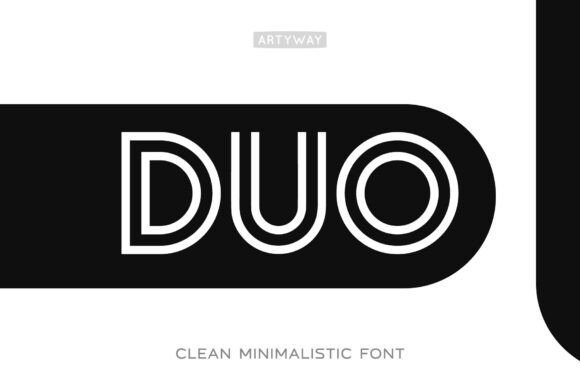
Duo Font: Elevate Your Typography with Retro-Tech Elegance and Clean Geometry
In the world of typography, fonts play a crucial role in conveying messages, expressing emotions, and creating visual identities. With the ever-evolving design landscape, it’s essential to stay ahead of the curve with fresh and innovative fonts. One such font that has caught the attention of designers and typography enthusiasts is the Duo Font. In this article, we’ll explore the features, benefits, and uses of the Duo Font, and why it’s a must-have for any designer looking to elevate their typography game.
What is Duo Font?
DUO is a geometric, clean, and bold display font designed by font creator. It’s a modern, minimalistic font with a strong visual rhythm and high-impact presence. The font’s distinct double-line structure blends retro-futuristic aesthetics with modern minimalism, making it perfect for creating standout titles, high-end branding, and creative tech visuals.
Key Features of Duo Font
- Geometric and Clean Design: DUO boasts a geometric and clean design, making it perfect for modern designs that require a bold and sleek look.
- Distinct Double-Line Structure: The font’s unique double-line structure gives it a retro-futuristic feel that’s perfect for creating eye-catching titles and headings.
- Three Stylish Variations: DUO comes in three stylish variations — DUO, Trim, and DuoBold — allowing you to explore a wide range of visual identities.
- High-Impact Presence: The font’s bold design ensures that your text grabs attention and makes a lasting impression.
Uses of Duo Font
DUO is a versatile font that can be used in various design projects, including:
- Product Packaging: Use DUO to create sleek and modern product packaging that stands out on store shelves.
- Editorial Layouts: Add a touch of elegance and sophistication to your editorial layouts with DUO’s clean and geometric design.
- Futuristic Posters: Create eye-catching posters with a retro-futuristic feel using DUO’s unique double-line structure.
- High-End Branding: Use DUO to create high-end branding that exudes luxury and sophistication.
Benefits of Using Duo Font
So, why should you use DUO in your design projects? Here are some benefits:
- Unique Voice: DUO adds a unique voice to your typography toolkit, setting you apart from others.
- Elegance and Sophistication: The font’s clean and geometric design adds a touch of elegance and sophistication to your designs.
- Retro-Futuristic Feel: DUO’s retro-futuristic aesthetic gives your designs a nostalgic feel with a modern twist.
- High Versatility: The font’s three stylish variations ensure that you can use it in a wide range of design projects.
In conclusion, DUO is a game-changing font that’s perfect for designers looking to add a unique voice to their typography toolkit. With its geometric and clean design, distinct double-line structure, and three stylish variations, DUO is a versatile font that can be used in various design projects. Whether you’re designing product packaging, editorial layouts, or futuristic posters, DUO is the perfect choice. So, download DUO today and take your typography to the next level!